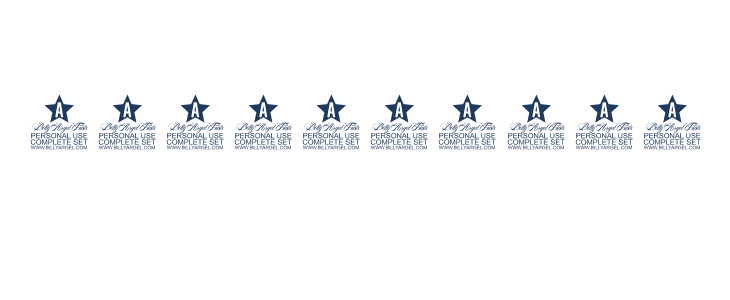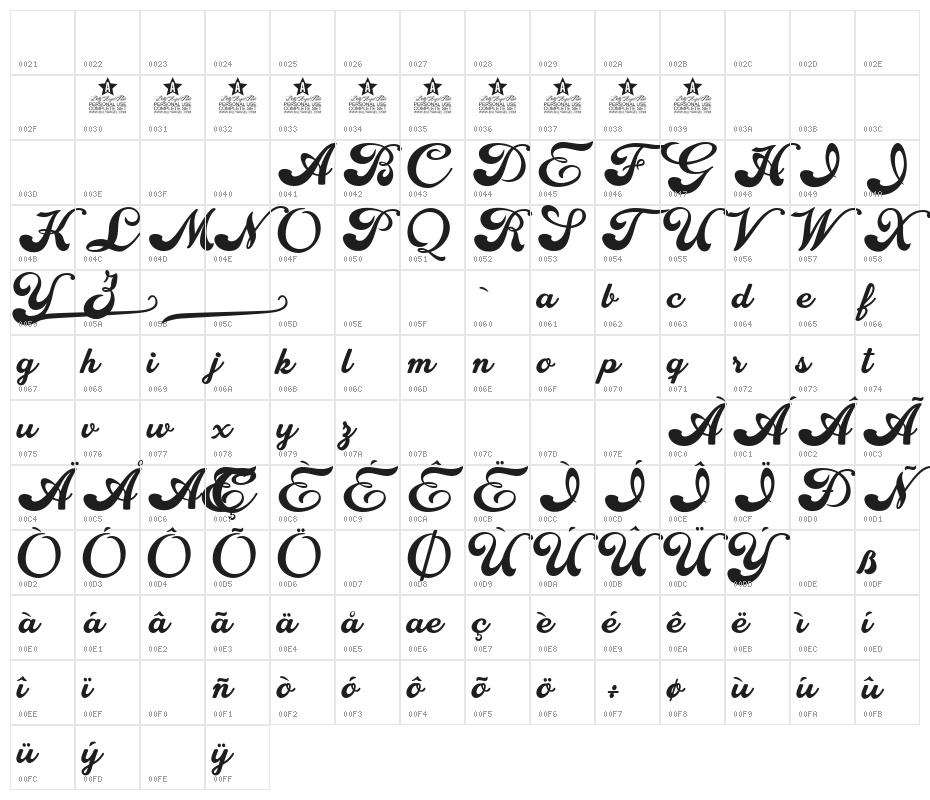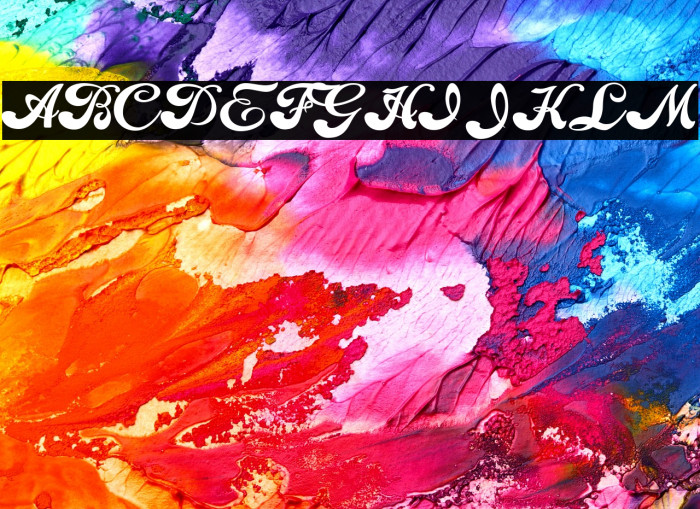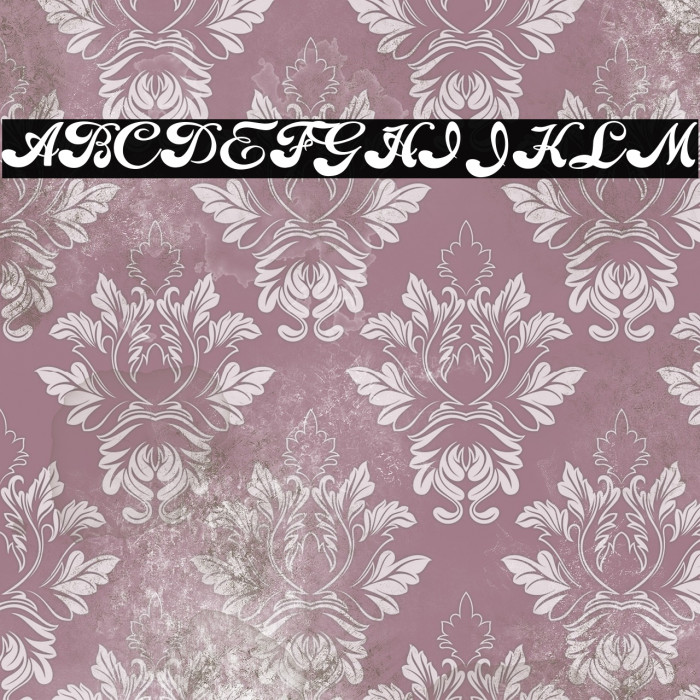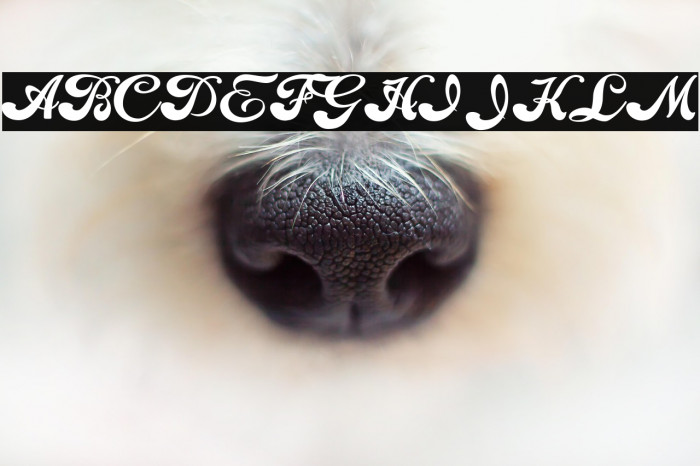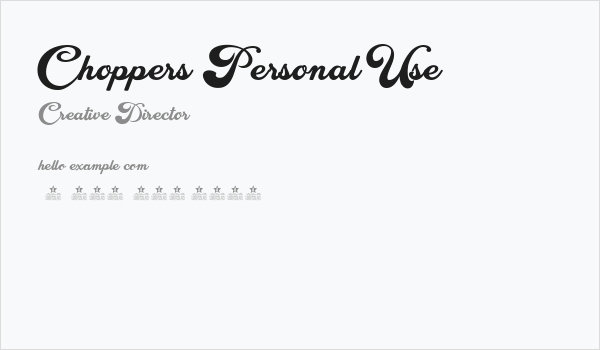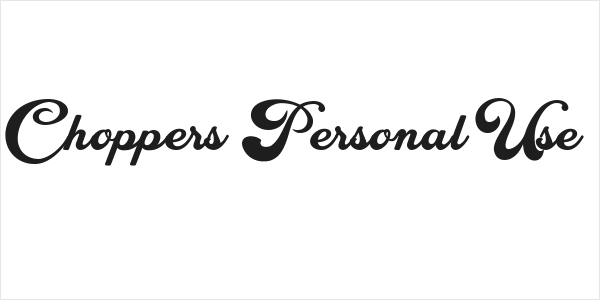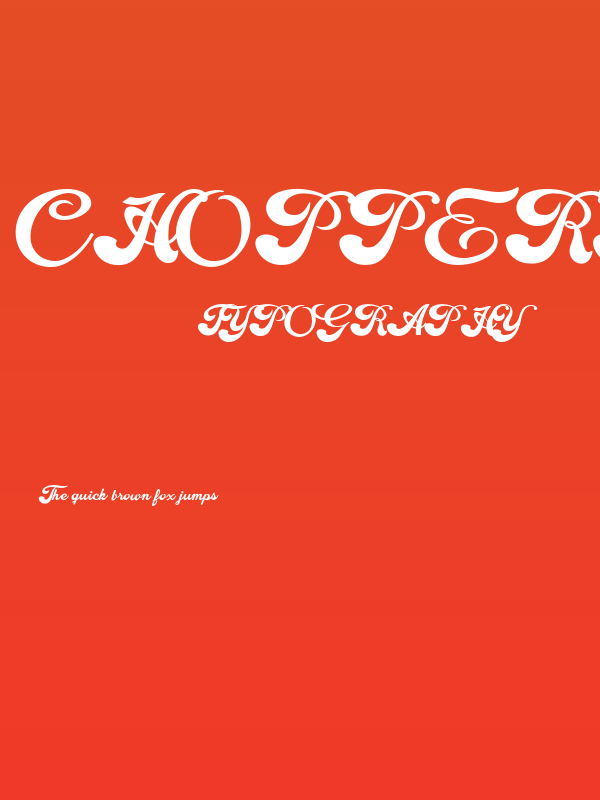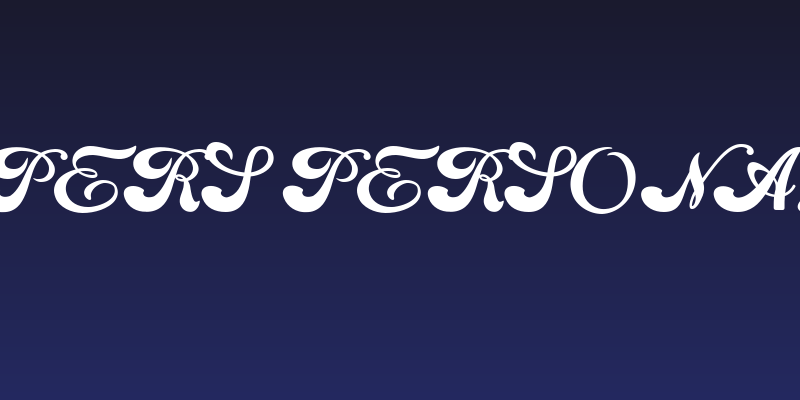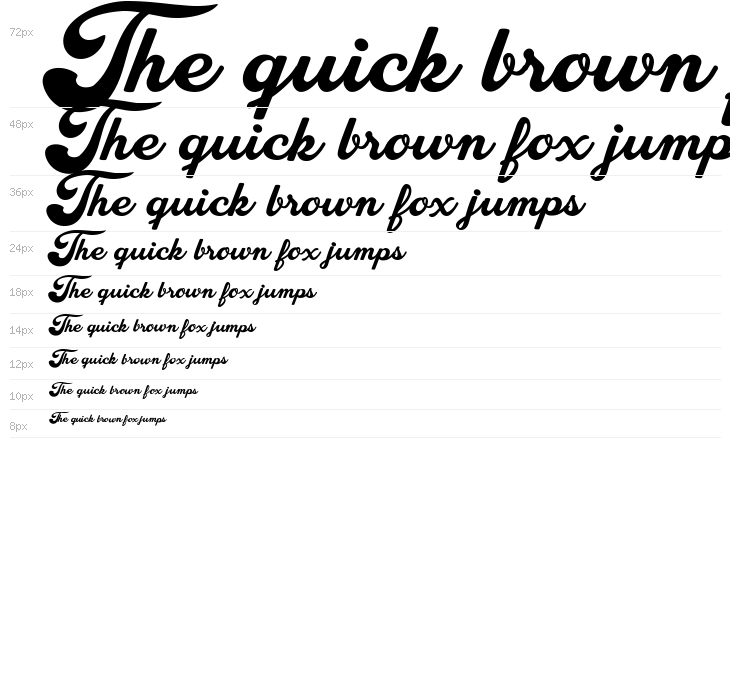
Choppers Personal Use Font
Choppers Personal Use Description
This font features a bold and flowing script style, characterized by its elegant and cursive letterforms. The uppercase letters are ornate with swashes and flourishes, giving them a decorative appearance. The lowercase letters maintain a consistent flow, enhancing readability while retaining a stylish flair. The numerals and special characters are designed to match the overall script aesthetic, making them suitable for cohesive design projects. This font's bold weight and high contrast between thick and thin strokes add to its visual impact, making it ideal for attention-grabbing designs.
| Use Case | Logos, Headlines |
| Proposed Projects | Ideal for wedding invitations, branding, logos, and decorative headlines. |